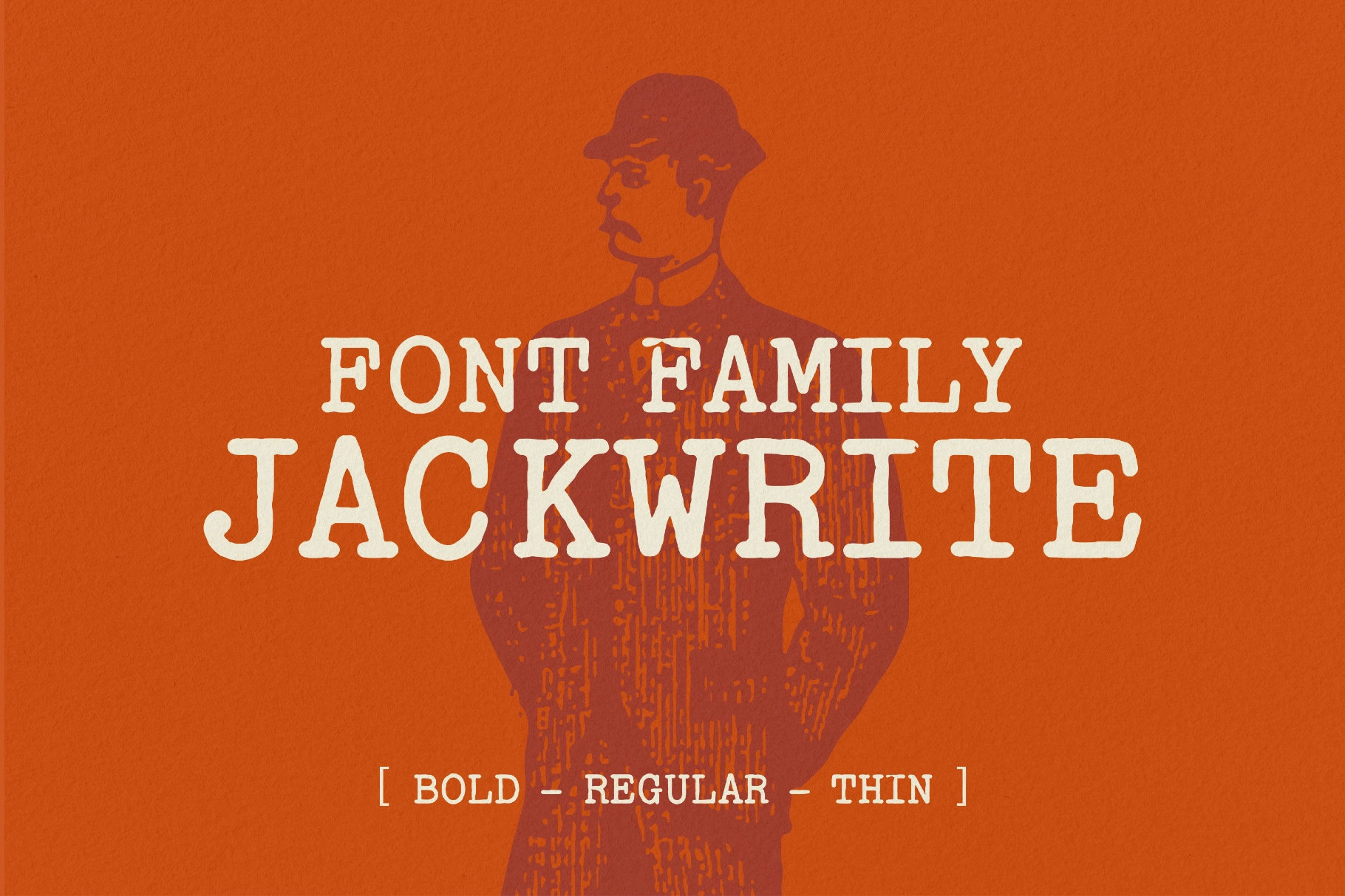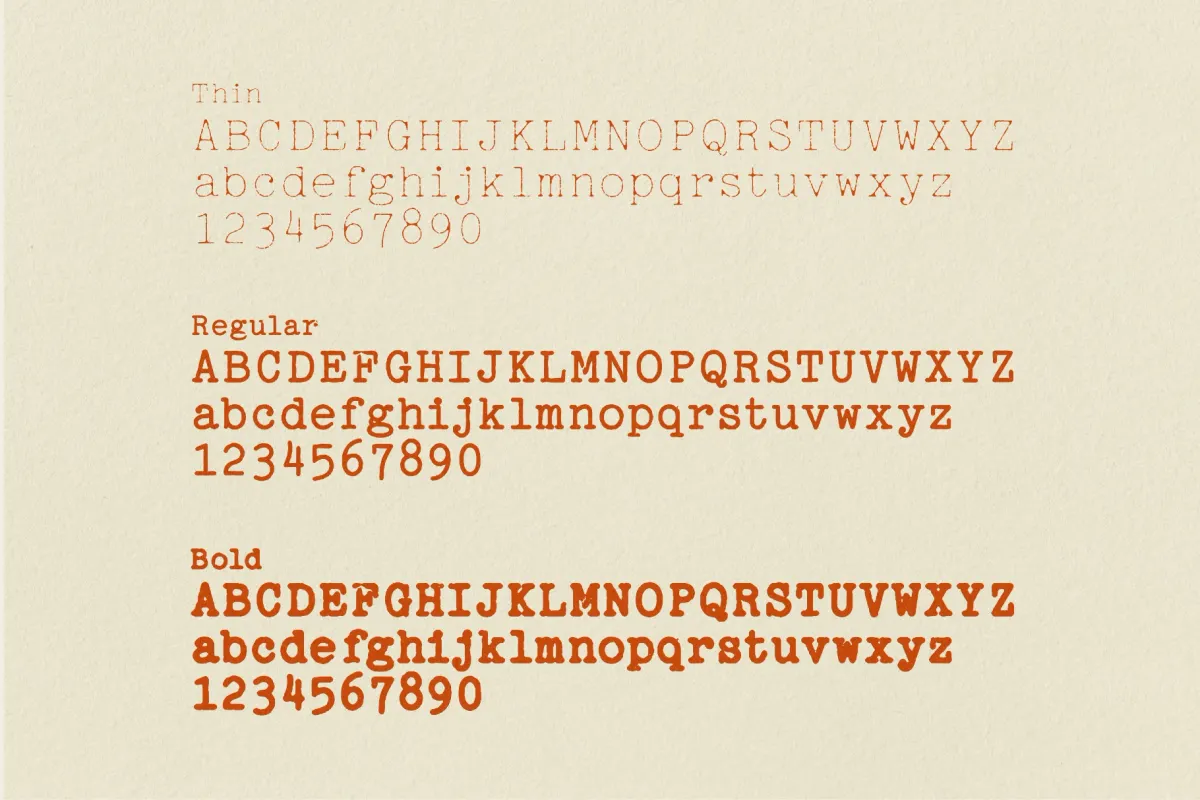
Jackwrite Font Family
Jackwrite
Jackwrite is a proportional typewriter font family with scuffed edges, rounded slabs, and jittered ink. The characters land with soft bruises: rounded blotches, wavering stems, and ink-soaked counters. The three alternates per type (bold, regular, and thin) prevent mechanical repetition.
Jackwrite works best for travel journals, literary zines, archival-style posters, indie album notes, personal essays, mystery-noir headings, and monologue-heavy layouts. It also suits branding with analog grit: e.g., labels, postcards, café menus, story-driven campaigns, and film titles.